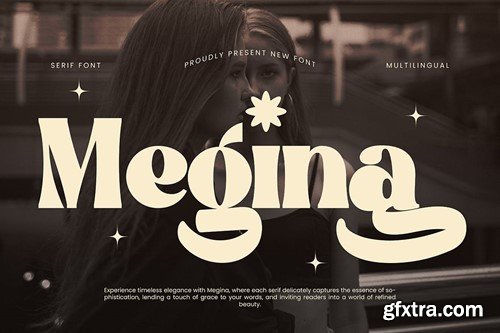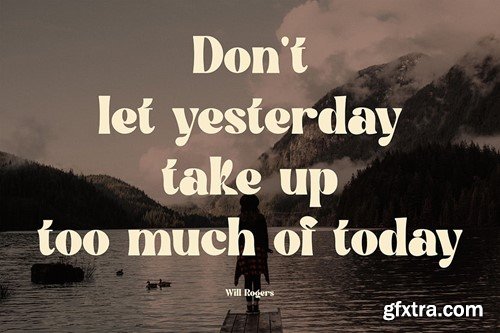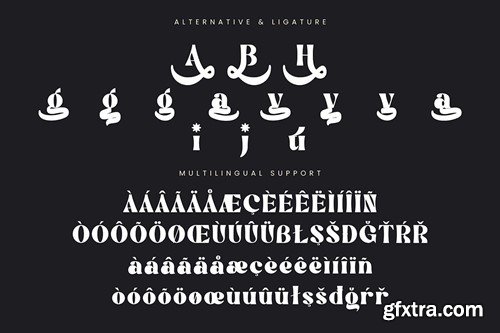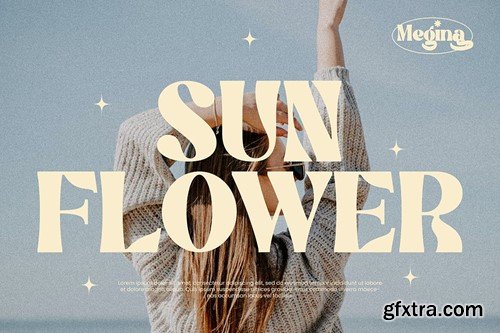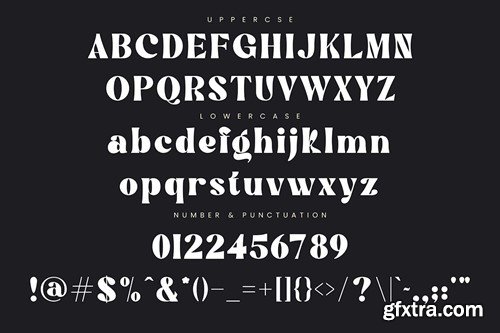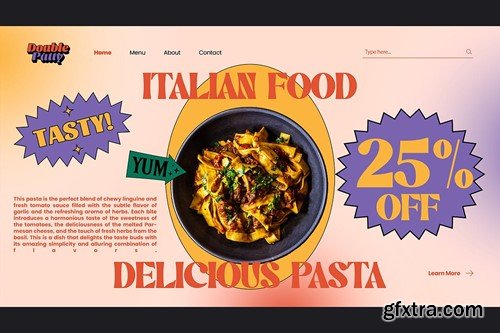
Megina - Serif Font SQ9GHGC
Megina - Serif Font
Introducing Megina, a simple and serif font. So perfect for you who needs a typeface for logo designs, magazine, social media, brochure, and many more.
Features
• Uppercase
• Lowercase
• Punctuation
• Numerals
• Multilingual Support